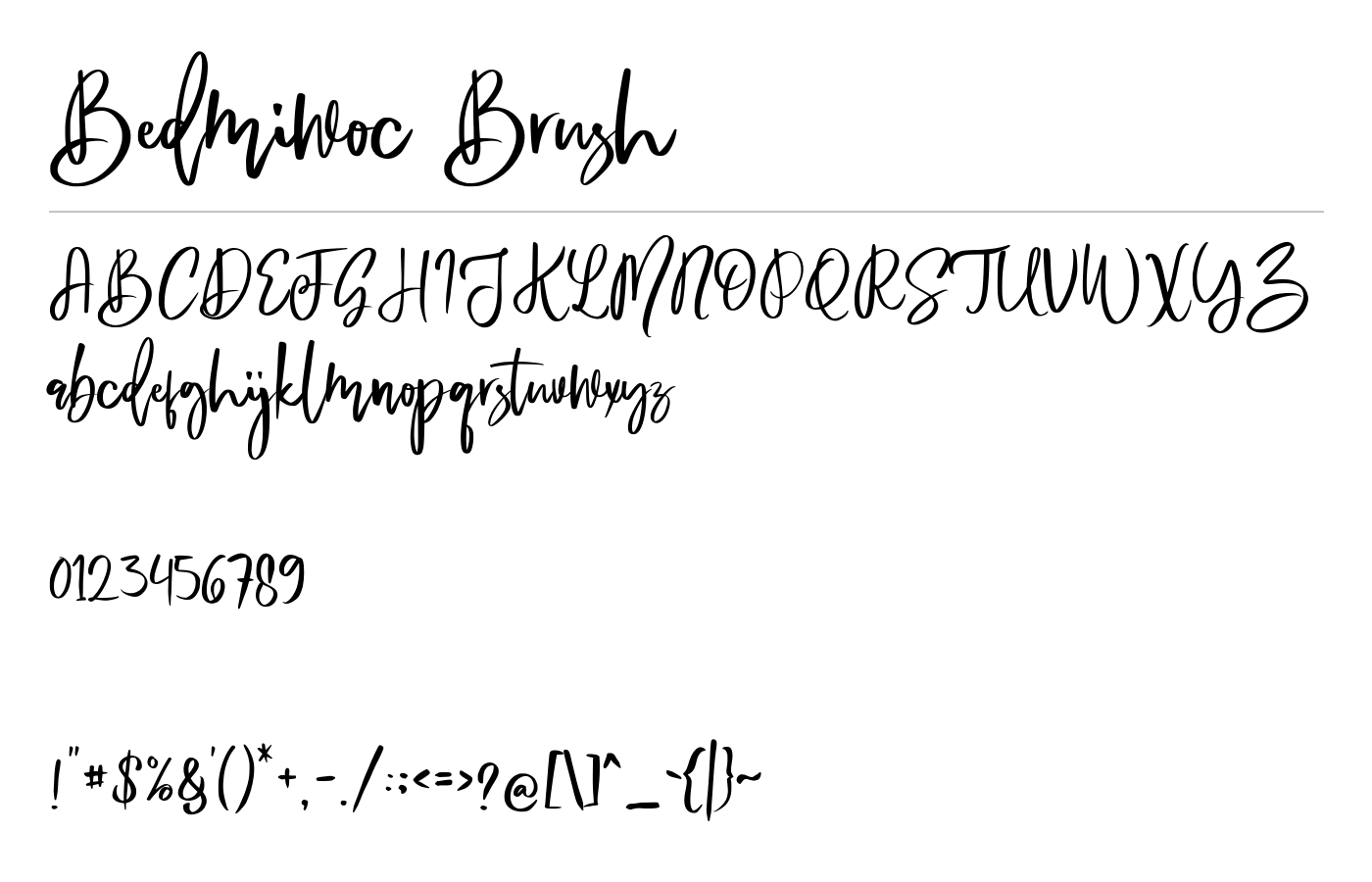
Bedmiwoc Brush is a lively and elegant script font with a hand-drawn brush style that feels both personal and stylish. Its tall, flowing letterforms with varying stroke widths add a charming, creative touch, making it perfect for branding, invitations, and expressive headlines where a warm, artistic vibe is desired. This font works beautifully for fashion, beauty, and lifestyle projects seeking a unique and friendly handwritten look.
Bedmiwoc Brush Font
About Bedmiwoc Brush Font
| Font family | Bedmiwoc Brush Font |
| Designer | Tebaltipisstudio_Ferdiansyah_TTS |